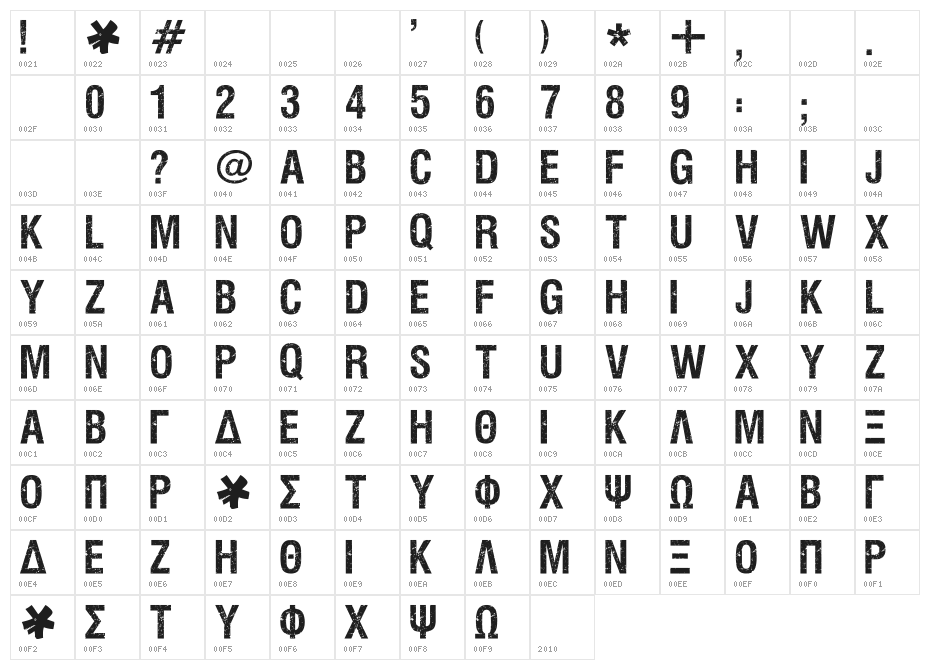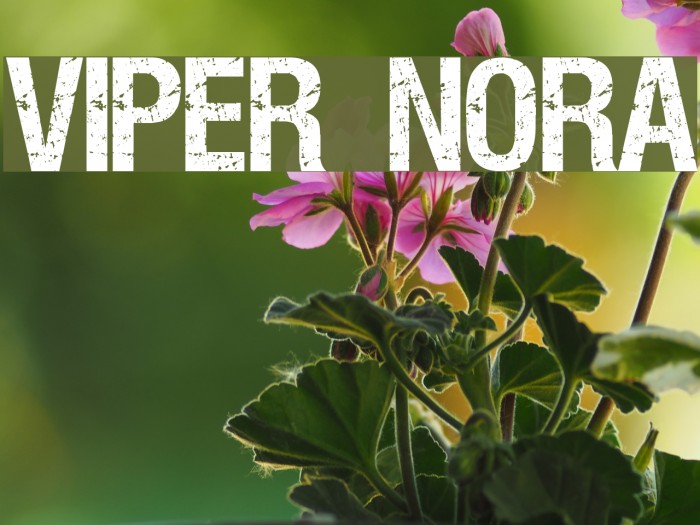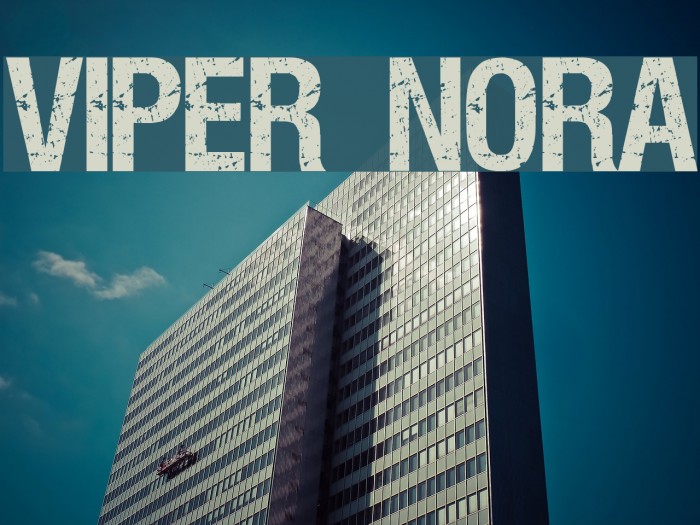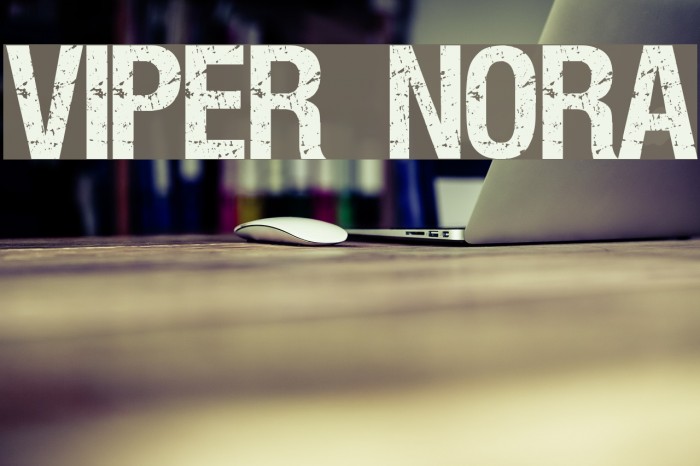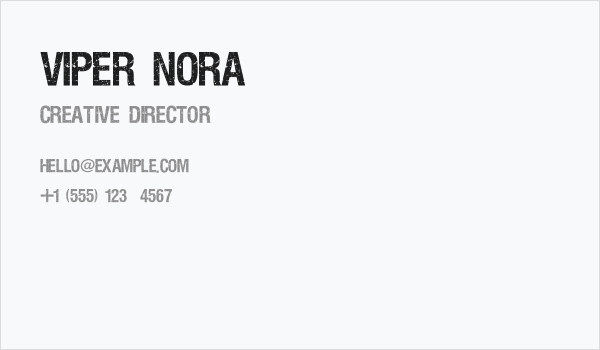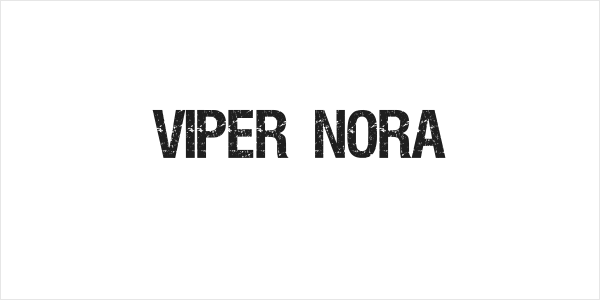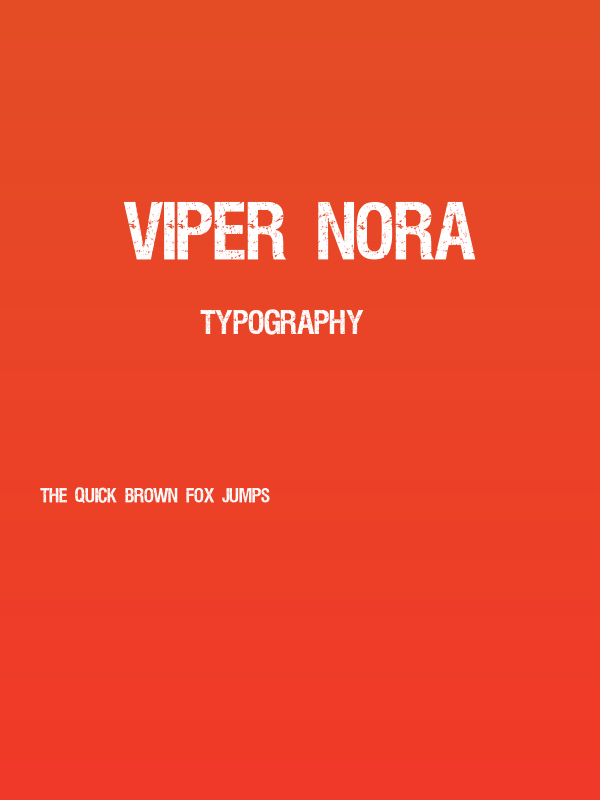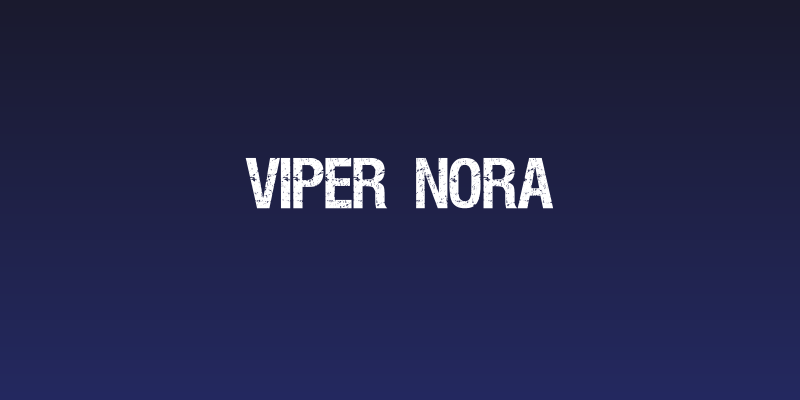
VIPER NORA Font
VIPER NORA Description
This font features a bold, distressed style with a textured appearance that gives it a rugged, vintage feel. The characters are uniformly bold with a consistent width, creating a strong visual impact. The distressed texture adds a layer of complexity, making it ideal for designs that require a gritty or worn look. The uppercase letters are prominent and assertive, while the numbers and special characters maintain the same boldness and texture. This font is well-suited for projects that aim to convey strength, durability, or a retro aesthetic.
| Proposed Projects | Ideal for posters, branding, album covers, and any design needing a vintage or gritty aesthetic. |